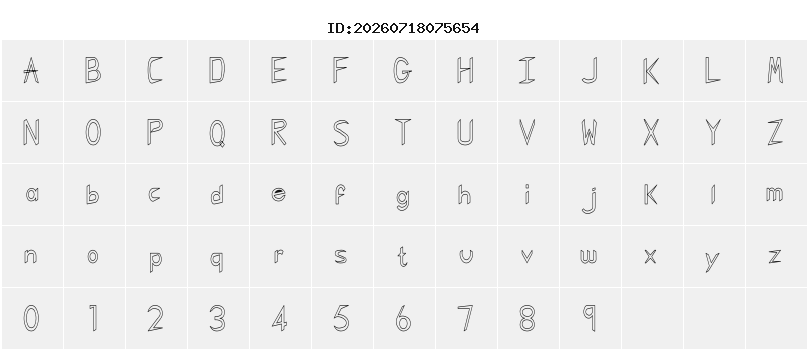
CharlieChanHC Preview
About CharlieChanHC.ttf
CharlieChanHC.ttf is a modern, elegant sans-serif font designed for ultimate readability and visual harmony. Perfect for branding, headlines, web design, and print materials.